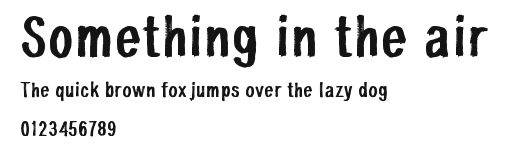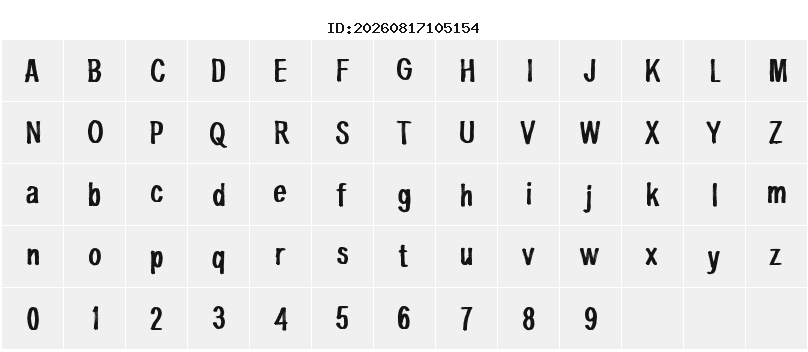
• Font Name: Something in the air
• Full Font Name: Something in the air
• Version: Version 1.00 May 6, 2015, initial release
• Designer: junkohanhero
Something in the air.ttf is a modern, elegant sans-serif font designed for ultimate readability and visual harmony. Perfect for branding, headlines, web design, and print materials.